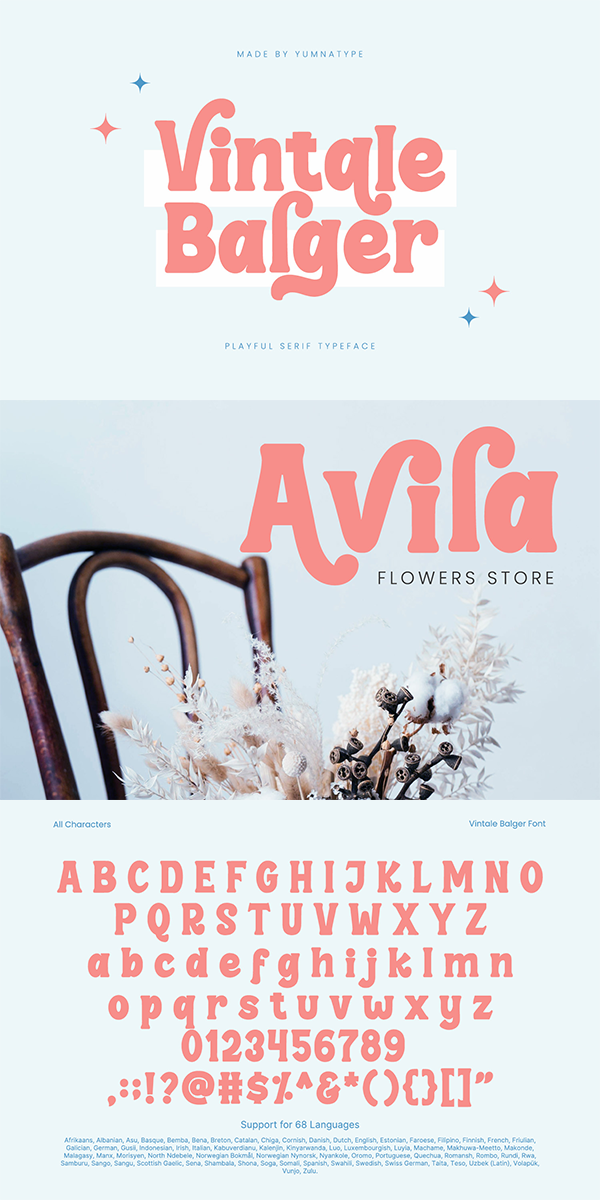
Vintale Balger Font
About Vintale Balger
Vintale Balger is a whimsical serif display font that infuses playful charm into any design project. Crafted with meticulous attention to detail, Vintale Balger exudes a sense of whimsy and personality in every letter. Despite its thick weight and low contrast, the consistent proportions ensure that each character retains its readability and clarity. With its playful style and charming details, Vintale Balger adds a sense of joy and spontaneity to any project. In addition, enjoy the features here.
Vintale Balger fits in headlines, logos, posters, flyers, branding materials, greeting cards, print media, editorial layouts, and many more designs. Find out more ways to use this font by taking a look at the font preview.